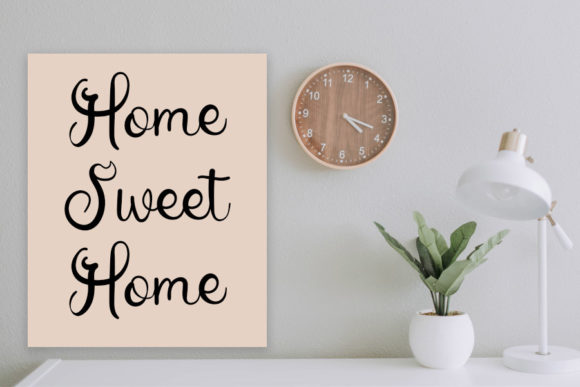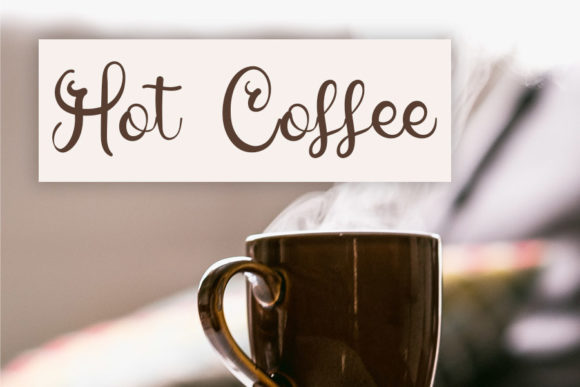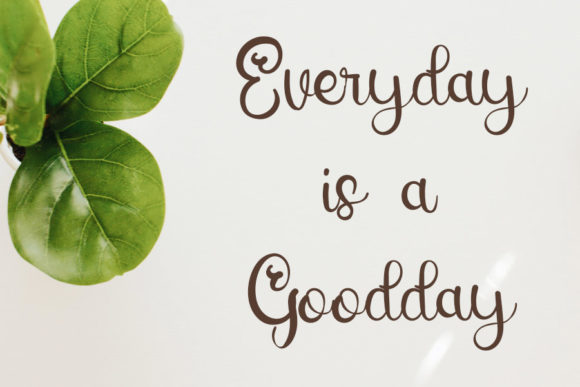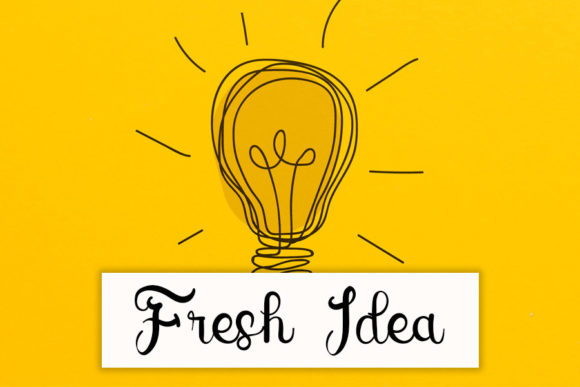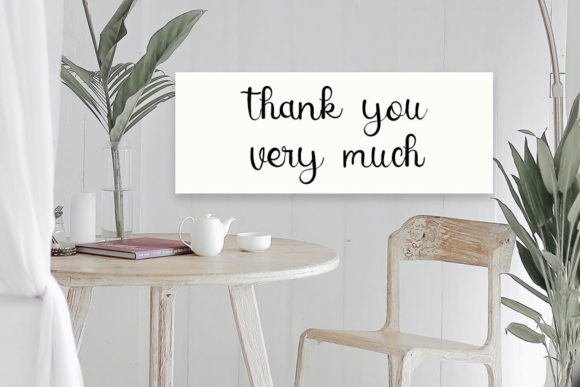
Introducing Handwriting Font: The Timeless Choice for Creative Designs
Handwriting is a lovely and timeless handwritten font that has captured the hearts of designers and crafters alike. Its unique and beautiful touch makes it the best choice for creating eye-catching logos, branding, and quotes that stand out from the crowd. In this article, we’ll dive into the world of Handwriting Font and explore its features, benefits, and uses.
The Beauty of Handwriting Font
Handwriting Font is a carefully crafted font that mimics the elegance and charm of handwritten script. Every letter has a distinct and beautiful touch, which gives it a personal and human feel. The font’s unique characteristics make it perfect for designs that require a touch of personality and whimsy. Whether you’re creating a logo, branding materials, or quotes, Handwriting Font is sure to make your design come alive!
Features of Handwriting Font
- Unique and Beautiful Touch: Each letter in Handwriting Font has a distinct and beautiful touch that sets it apart from other fonts.
- Timeless Design: The font’s classic design ensures that it remains timeless and relevant, even as design trends evolve.
- Elegant and Whimsical: Handwriting Font strikes the perfect balance between elegance and whimsy, making it suitable for a wide range of designs.
- Highly Versatile: The font can be used for various design projects, including logos, branding, quotes, and more.
Benefits of Using Handwriting Font
Using Handwriting Font in your designs offers numerous benefits, including:
- Emotional Connection: The font’s personal and human touch helps create an emotional connection with your audience.
- Brand Differentiation: Handwriting Font’s unique characteristics help differentiate your brand from others and make it more memorable.
- Visual Appeal: The font’s elegant and whimsical design adds visual appeal to your designs, making them more engaging and shareable.
- Easy to Read: Despite its unique touch, Handwriting Font remains easy to read, ensuring that your message is communicated effectively.
Uses of Handwriting Font
Handwriting Font is a versatile font that can be used in various design projects, including:
- Logo Design: Create eye-catching logos that stand out from the crowd.
- Branding Materials: Use Handwriting Font to create consistent and recognizable branding materials, such as business cards, brochures, and letterheads.
- Quotes and Posters: Add a touch of elegance and whimsy to your quotes and posters.
- Digital and Print Media: Use Handwriting Font in digital and print media, such as social media graphics, flyers, and posters.
Tips for Using Handwriting Font